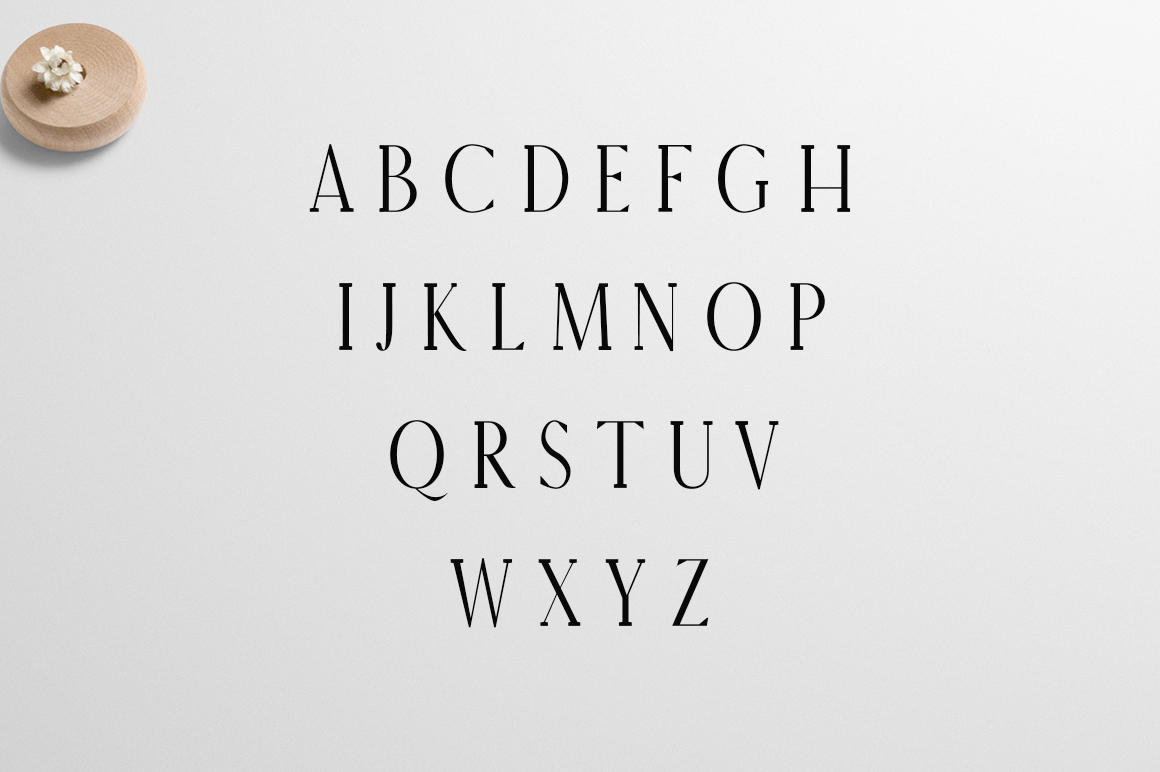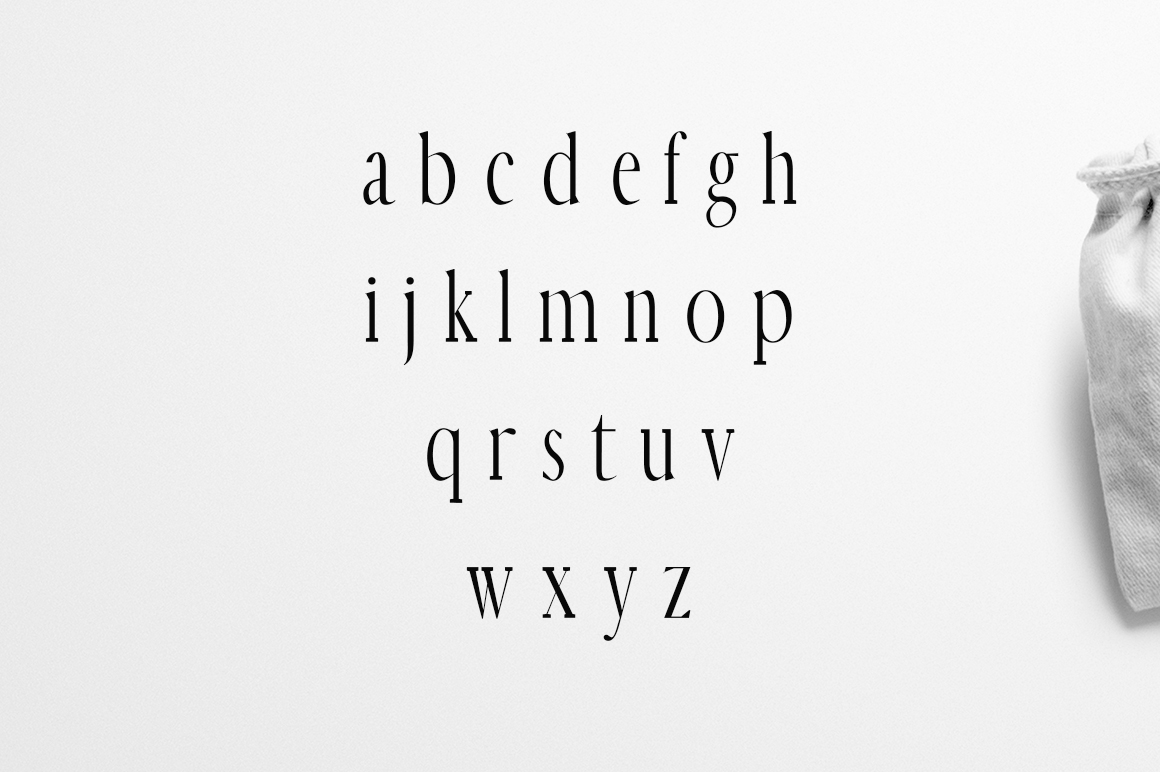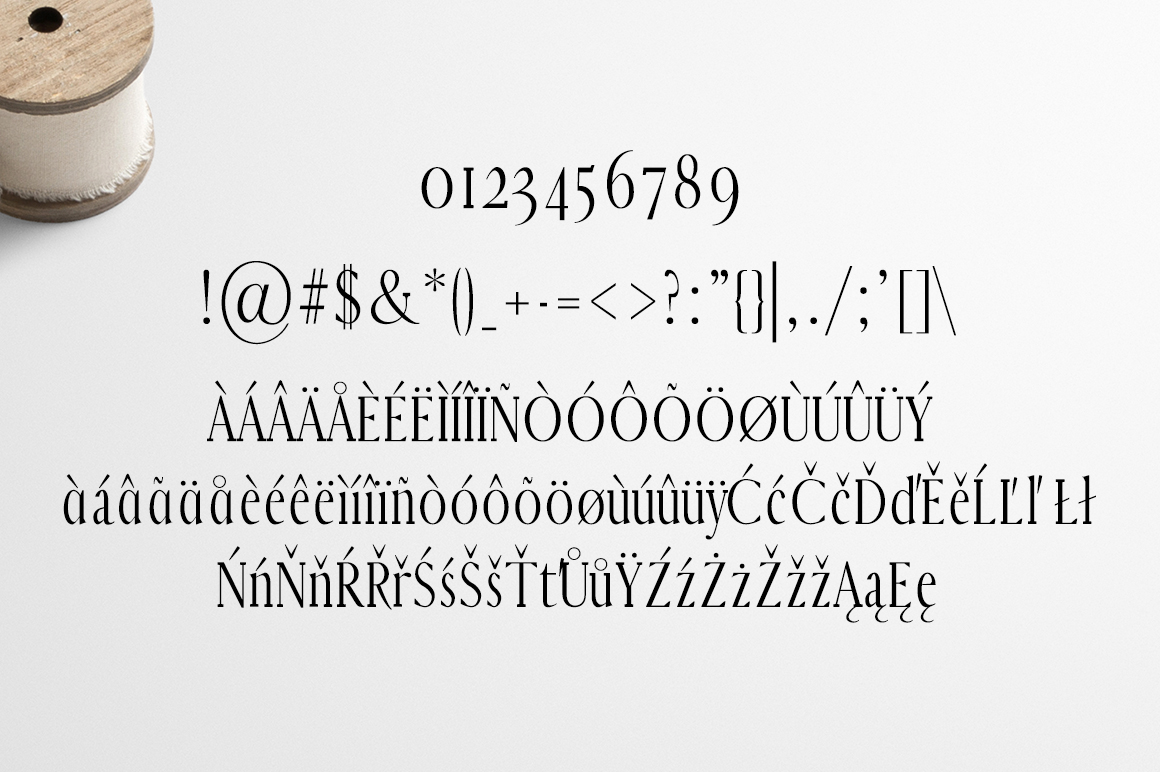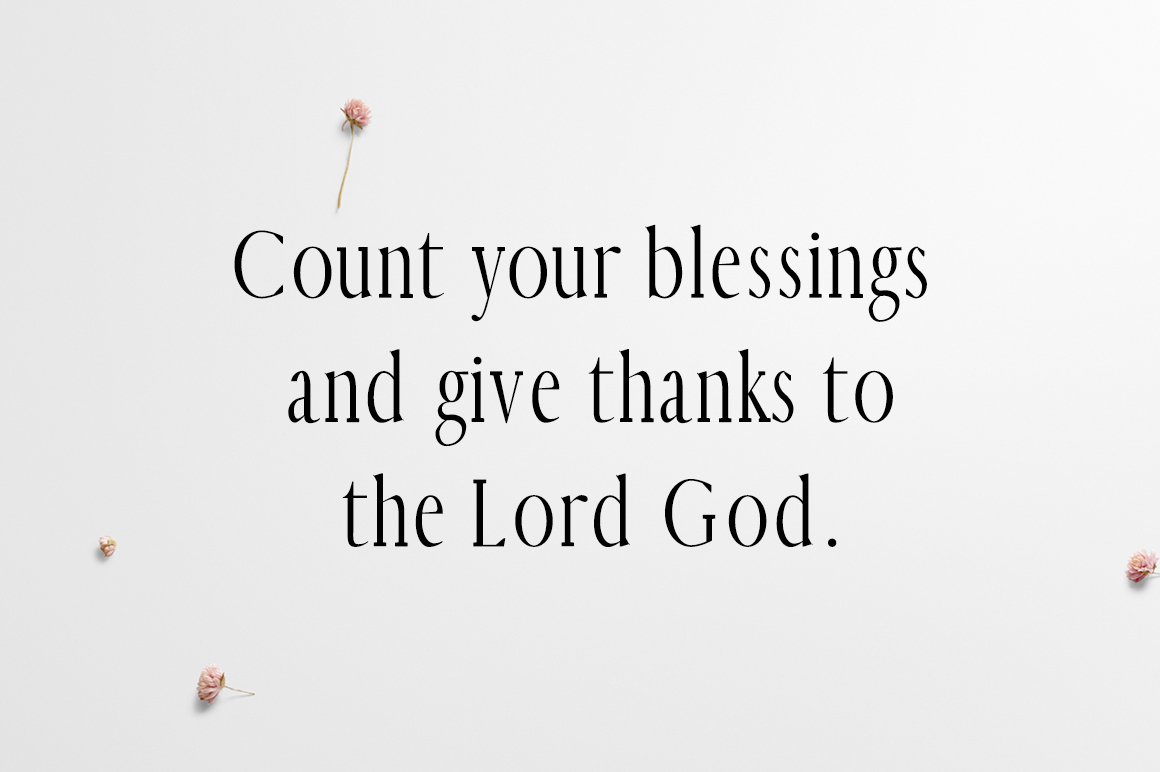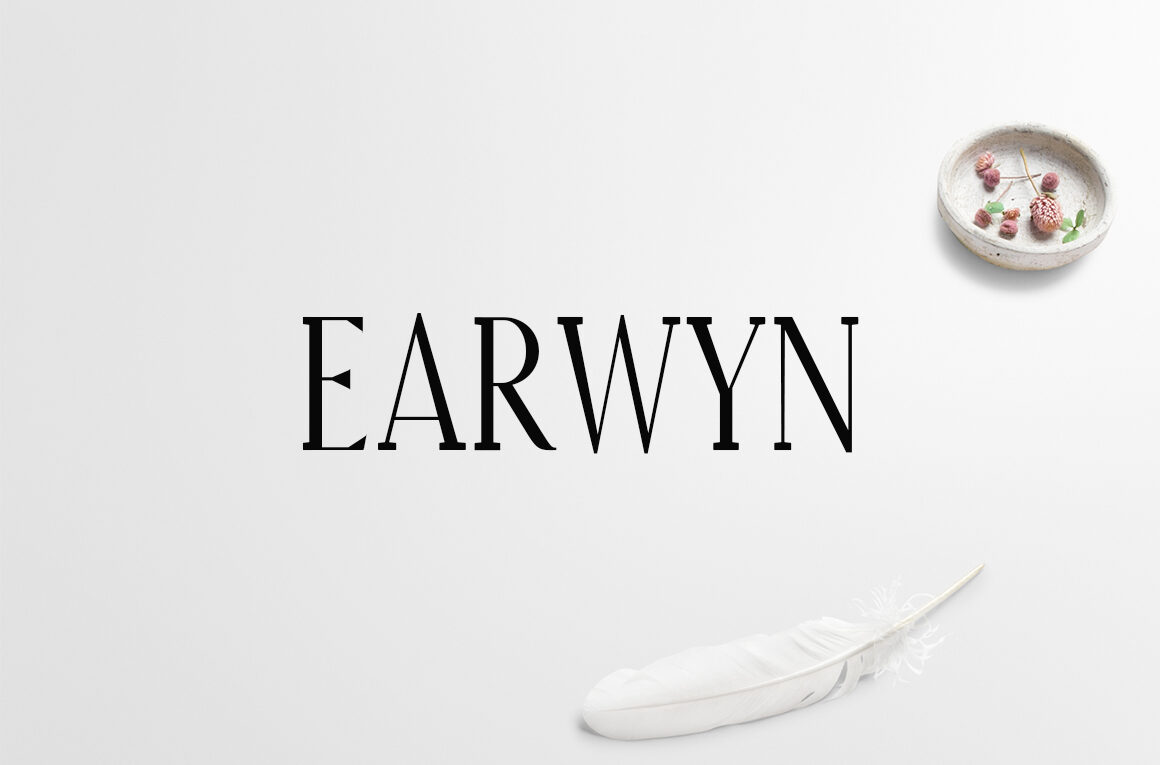
Introducing Earwyn Font: The New Classic in Serif Typography
In the world of typography, serifs have long been a staple for designers seeking to add a touch of elegance and sophistication to their creations. With the ever-evolving landscape of font design, it’s not often that a new serif font comes along and makes a lasting impression. However, Earwyn Font is here to shake things up with its unique and modern take on the classic serif look. In this article, we’ll dive into the features and benefits of Earwyn, and explore why it’s quickly becoming the go-to choice for designers and crafters alike.
A Fresh Take on Serif Typography
Earwyn Font boasts a distinctive and modern serif design that sets it apart from more traditional serif fonts. Its unique blend of classic and contemporary elements makes it an incredibly versatile choice for a wide range of design projects. Whether you’re working on a branding campaign, a website, or a craft project, Earwyn’s sophisticated and refined aesthetic is sure to elevate your work.
Key Features of Earwyn Font
- Unique and Modern Design: Earwyn’s serif design is both fresh and timeless, making it perfect for designers looking to create something new and exciting.
- Variety of Options: Earwyn comes in a range of styles and weights, giving you the flexibility to choose the perfect variation for your project.
- Highly Legible: Earwyn’s clear and concise lettering makes it easy to read, even at smaller font sizes.
Why Choose Earwyn Font?
So, what sets Earwyn apart from other serif fonts on the market? Here are just a few reasons why designers and crafters are falling in love with Earwyn:
- Elevate Your Design: Earwyn’s unique and modern design is sure to add a touch of sophistication to any project.
- Stand Out from the Crowd: With its distinctive serif design, Earwyn helps your work stand out in a crowded design landscape.
- Easy to Pair: Earwyn’s versatility makes it easy to pair with a wide range of fonts and design styles.
Earwyn in Action: Use Cases and Applications
Earwyn’s versatility makes it suitable for a wide range of design projects and applications. Here are just a few examples of how you can use Earwyn to elevate your work:
- Branding and Logo Design: Earwyn’s unique serif design makes it perfect for creating memorable and impactful logos.
- Web Design: Earwyn’s legibility and cross-platform compatibility make it an excellent choice for web design projects.
- Print Design: Earwyn’s sophisticated aesthetic makes it well-suited for print design projects, such as brochures, posters, and business cards.
- Crafting and DIY Projects: Earwyn’s elegant design makes it a great choice for crafters and DIY enthusiasts looking to add a personal touch to their projects.